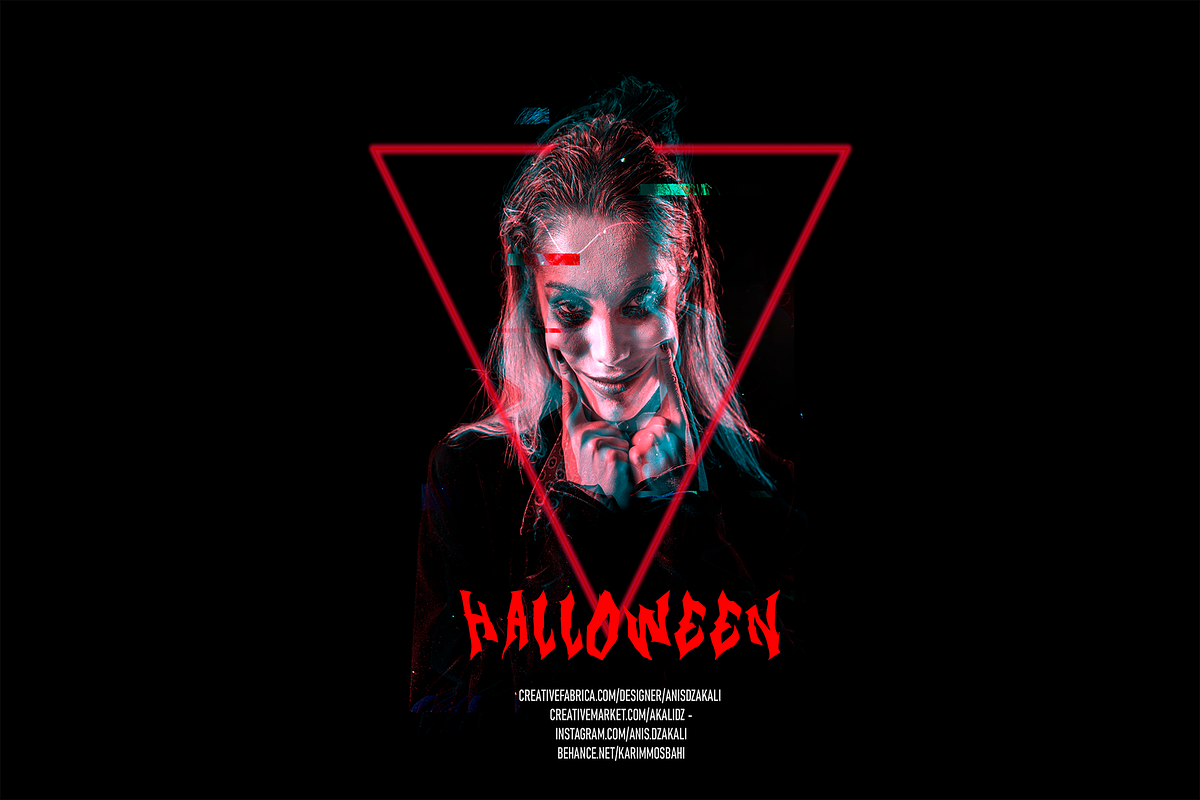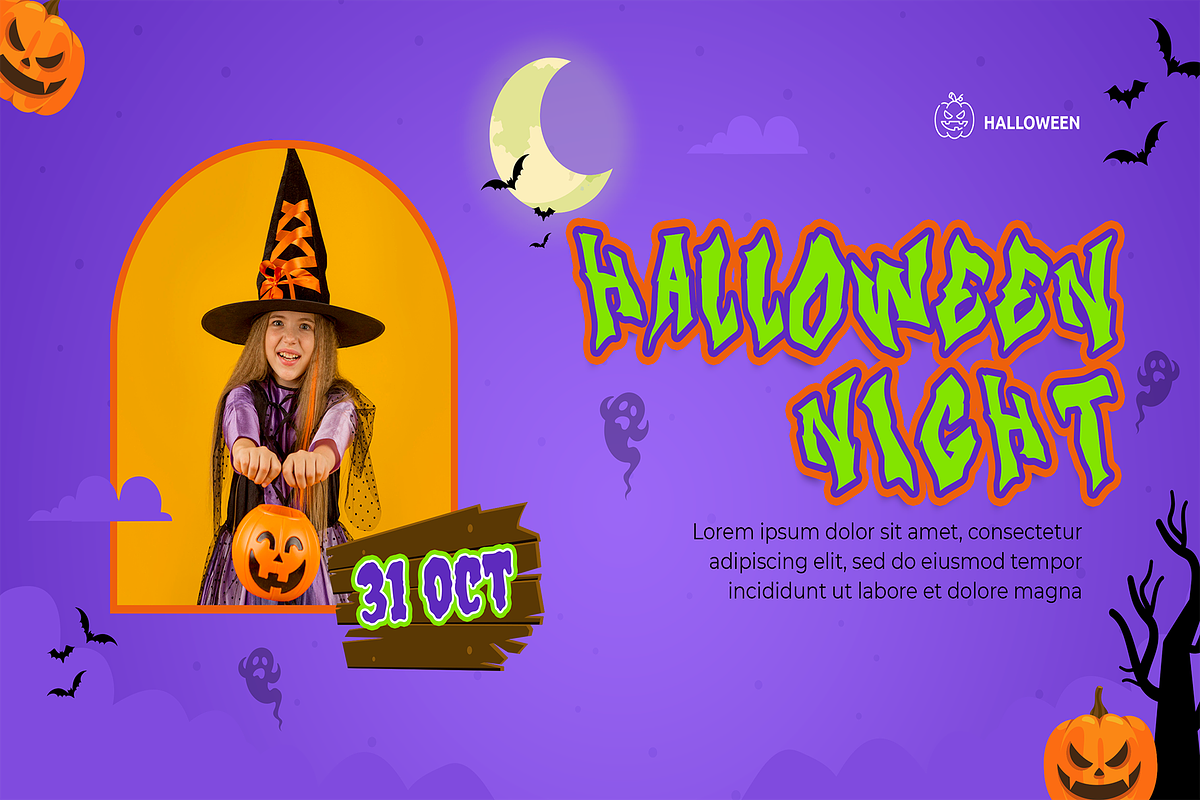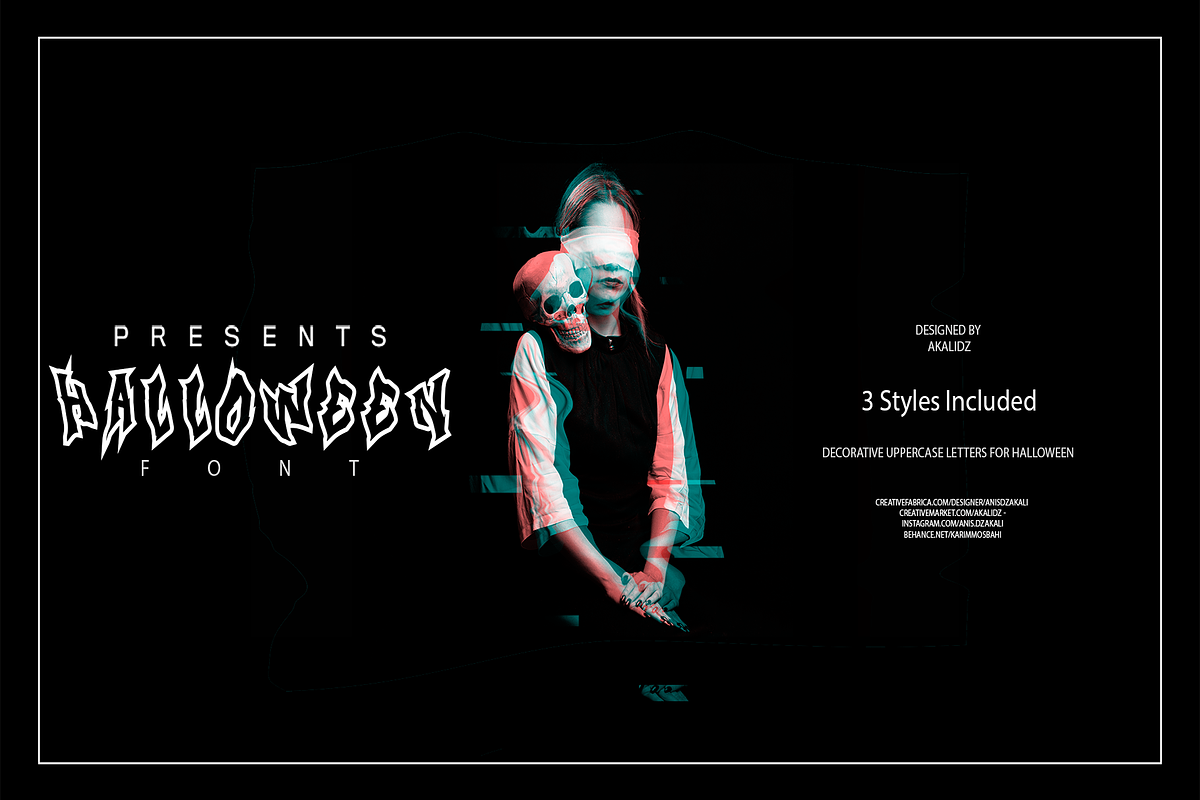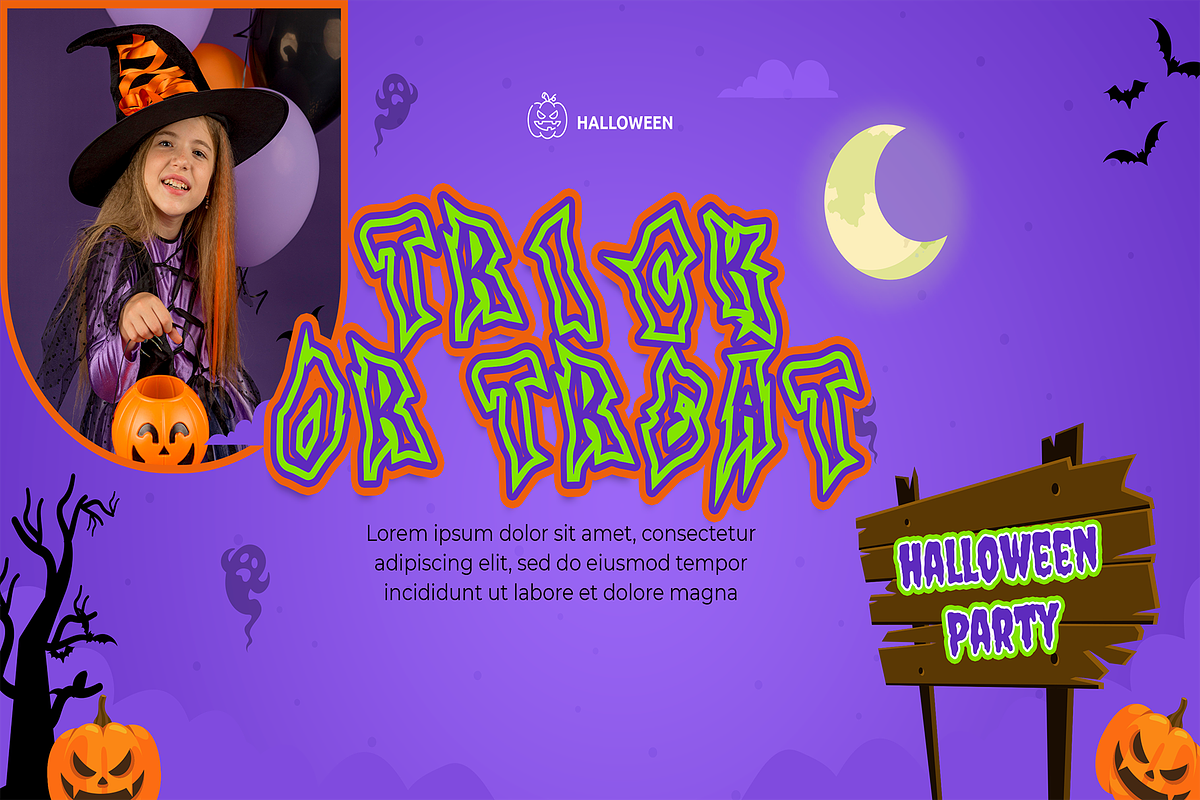
HALLOWEEN 2022
HALLOWEEN 2022 is a chic and distinct DECORATIVE font. No matter the topic, this font will be an incredibly asset to your fonts’ library, as it has the potential to elevate any creation.